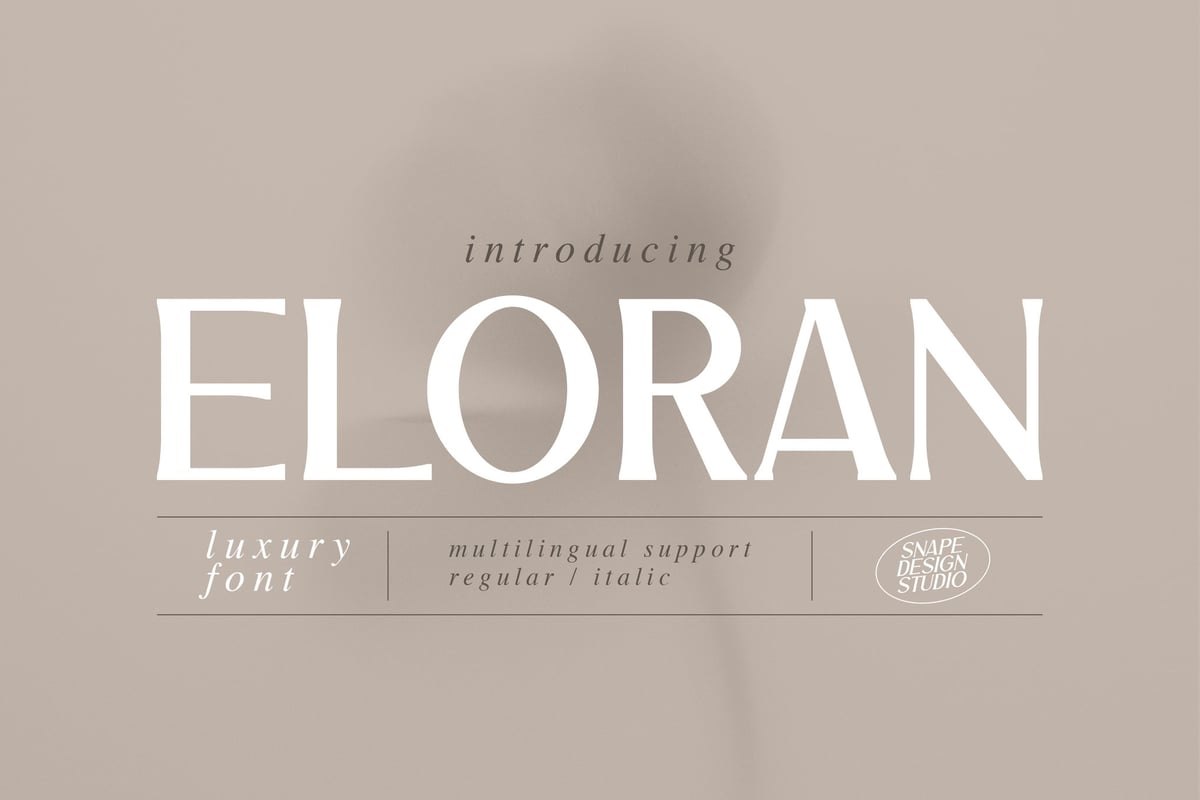
Eloran - Luxury Font
Eloran delivers sophisticated serif elegance for luxury brands seeking timeless distinction and refined visual impact. This meticulously crafted typeface embodies refinement and exclusivity through sharp, graceful letterforms and perfectly balanced proportions. Eloran seamlessly merges classical aesthetics with contemporary sophistication, making it the ideal choice for discerning designers who demand polished, distinguished typography. With its delicate yet commanding presence, this font transf...